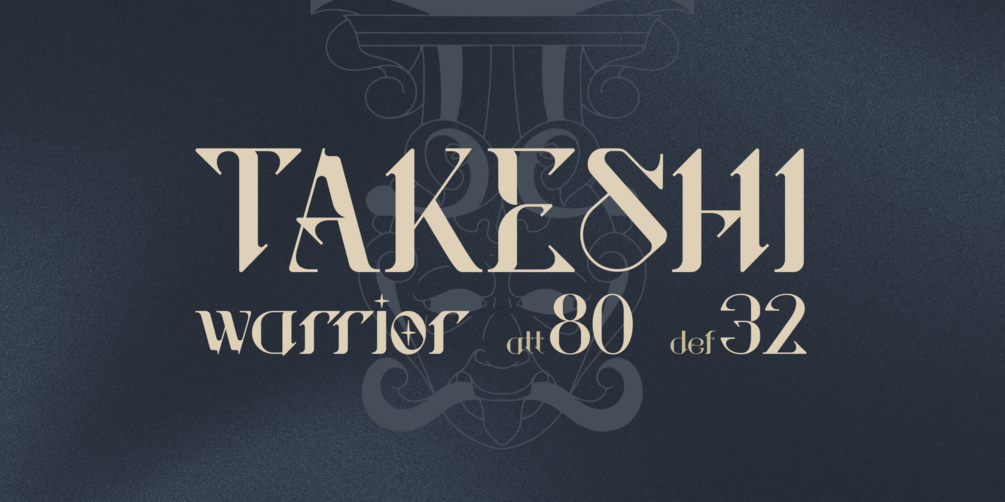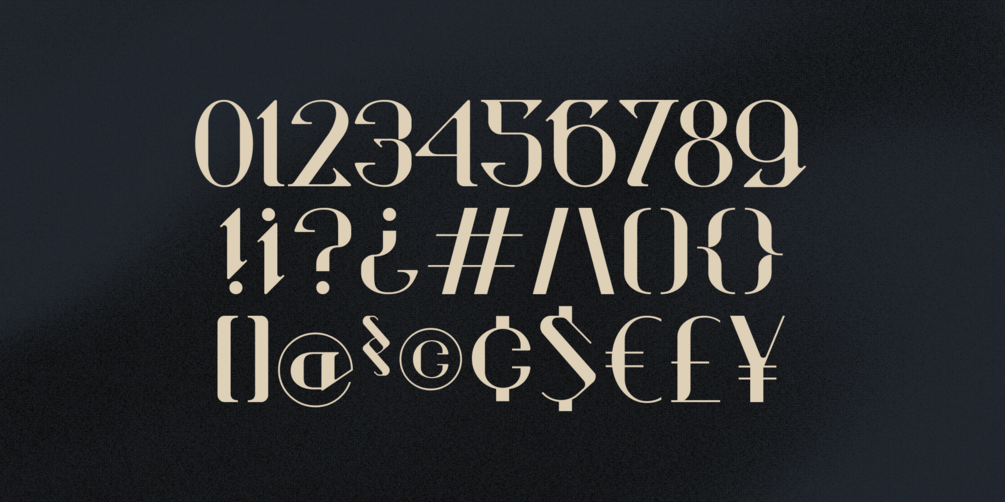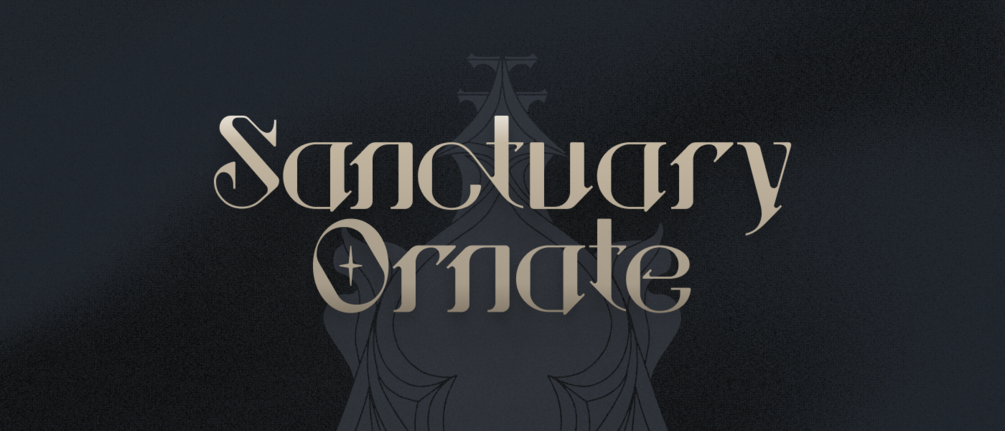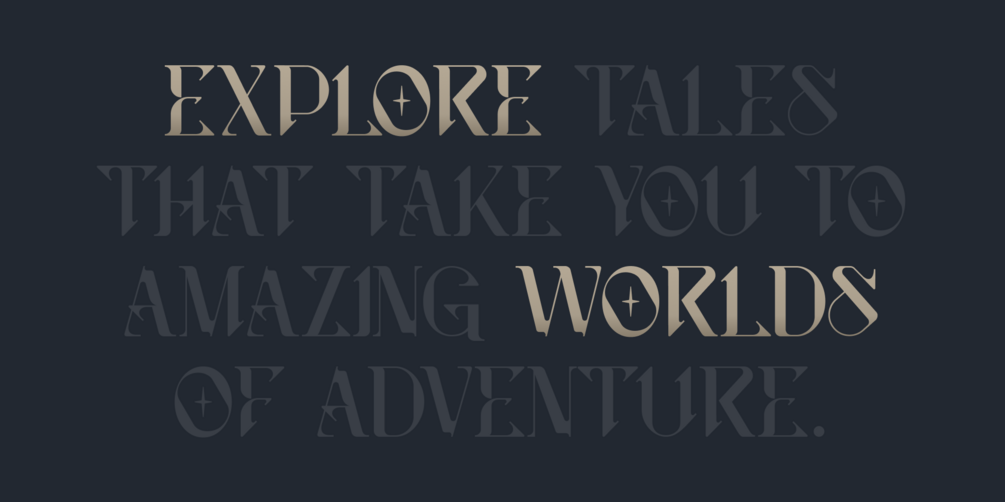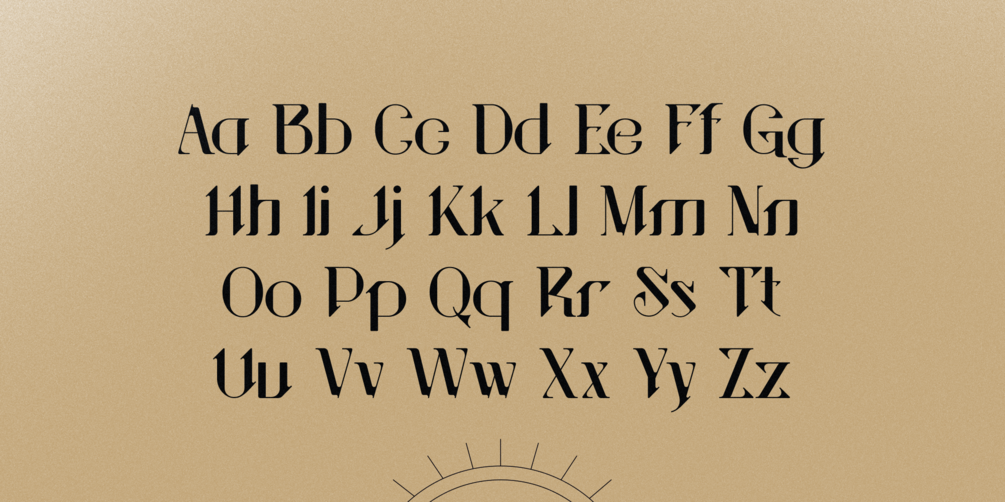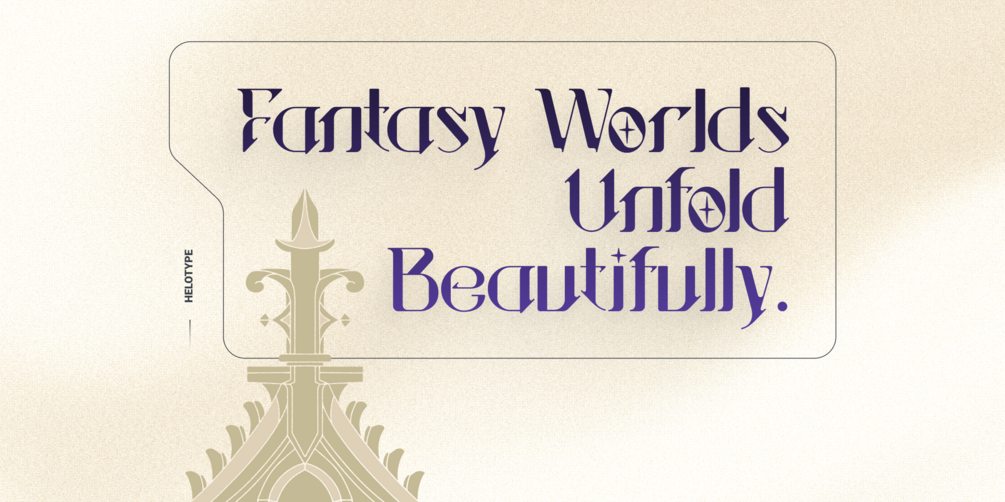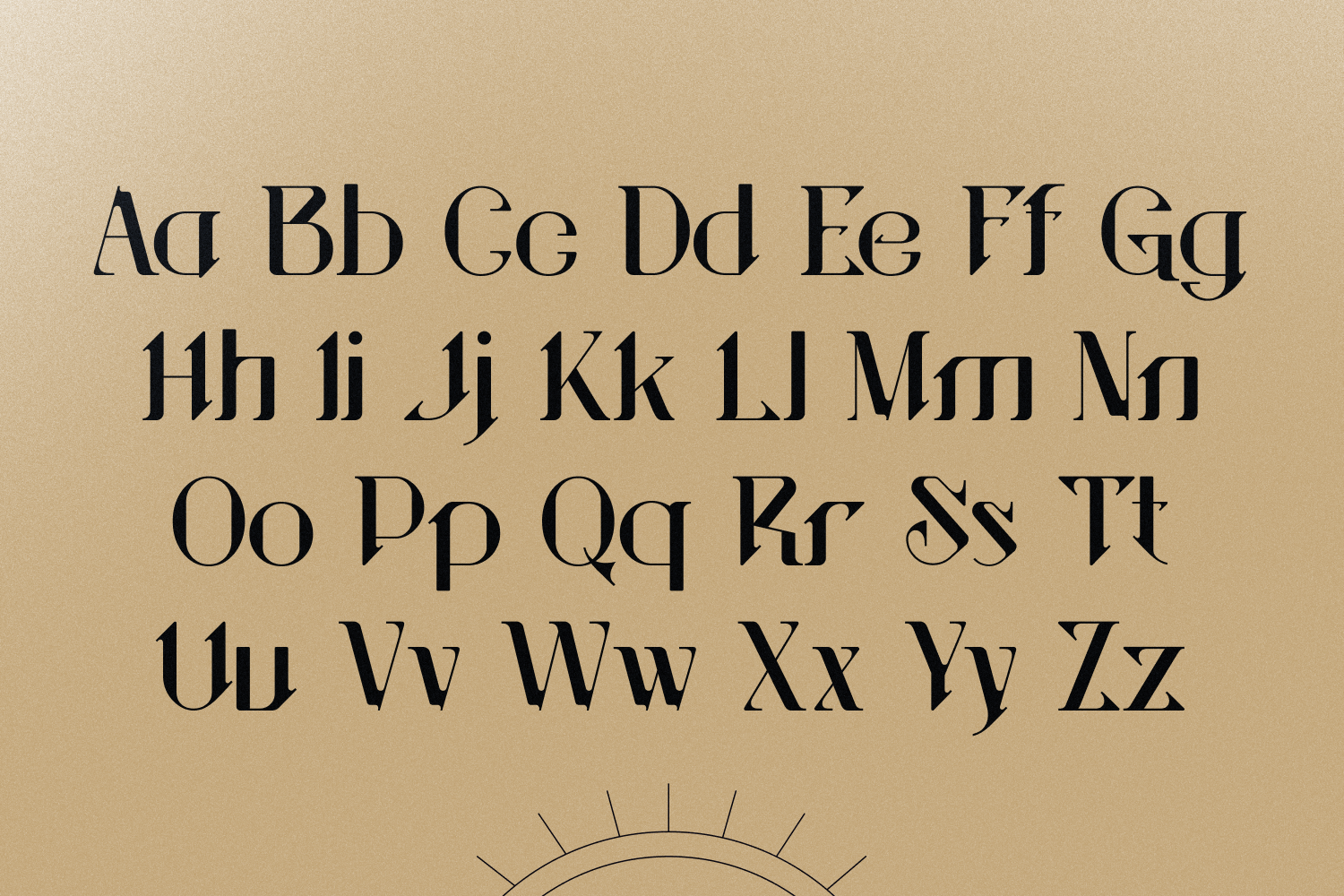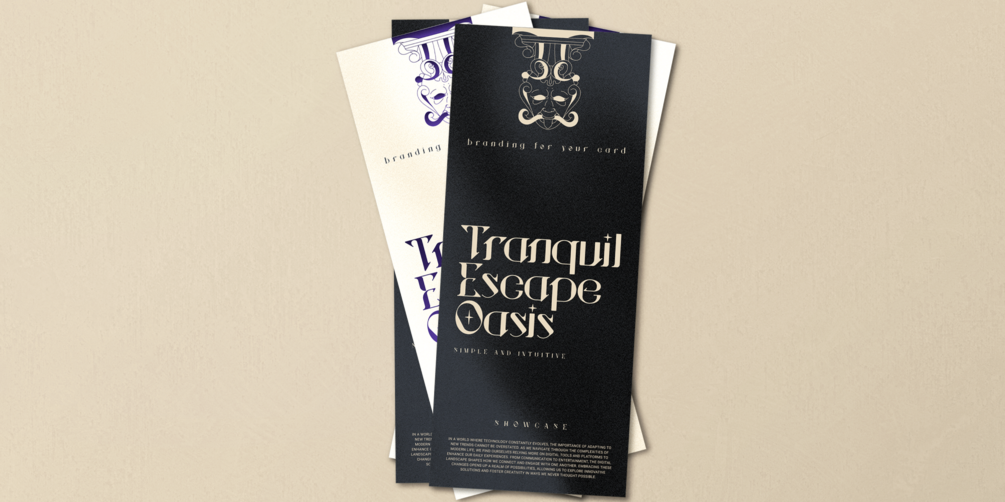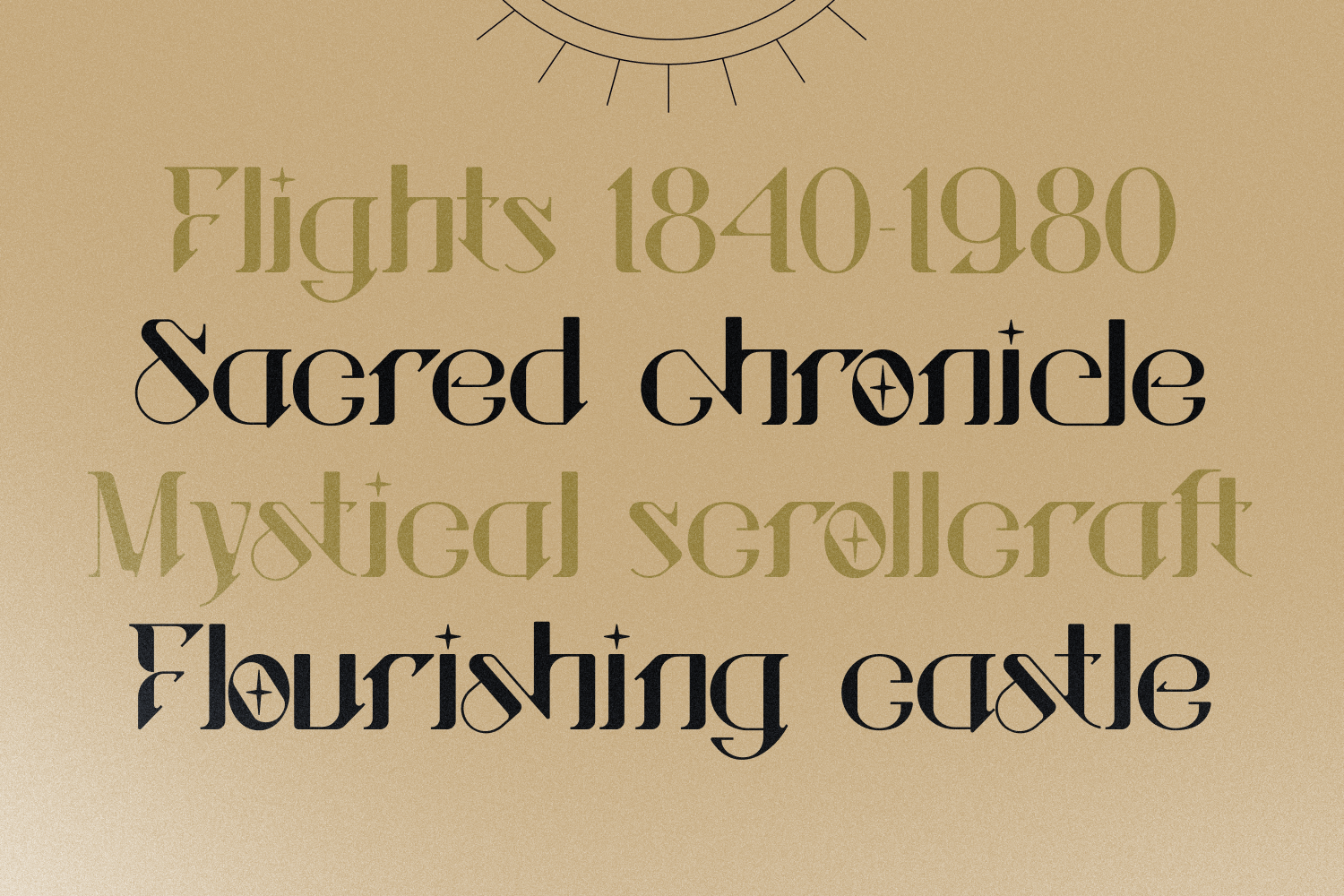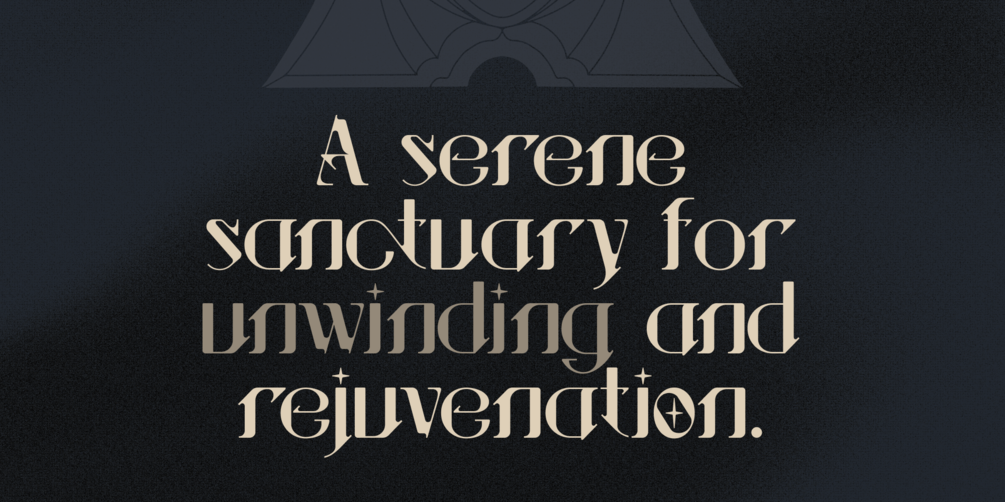
Sanctuary Ornate: The Pinnacle of Decorative Display
Step into a realm where typography transcends mere letters and becomes an art form. Sanctuary Ornate is a majestic display typeface, meticulously crafted to infuse your projects with unparalleled elegance and an air of timeless luxury. With its intricate serifs, captivating ligatures, and majestic presence, Sanctuary Ornate is more than just a font – it's a design statement. Perfect for high-end branding, sophisticated editorial layouts, enchanting book covers, and gaming projects, this font promises to elevate your creations from beautiful to unforgettable. Discover the pinnacle of decorative design and give your work the grandeur it deserves.
Uppercase and Lowercase letters
Ligature and alternates feature
Numbering and Punctuations